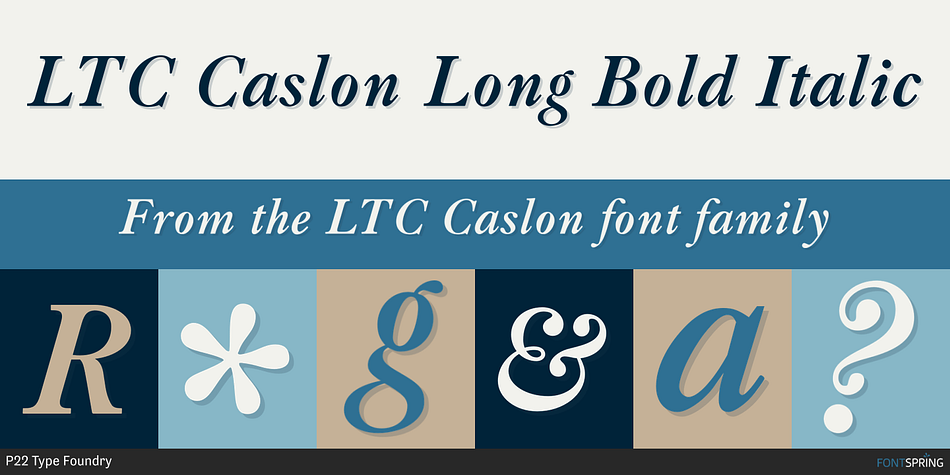
LTC Caslon Long Bold Italic
Designed by William Caslon and Paul Hunt, LTC Caslon is a serif font family. This typeface has twelve styles and was published by P22 Type Foundry.
William Caslon cut his first typefaces in 1720. For almost 300 years various versions of the Caslon faces have come in and out of style, but always seem to be regarded as a classic type style suitable for many uses; thus the famous quip: “When in doubt, use Caslon”.
In remastering this font for release in 2005, the characters have been completely redrawn based upon the 14pt font for hand composition. This design is closer in spirit to the original Caslon. The original Monotype version from 1915 was offered with long and short descenders. LTC Caslon comes in both variants—the regular fonts featuring short descenders and fonts designated as “long” have the longer descenders.